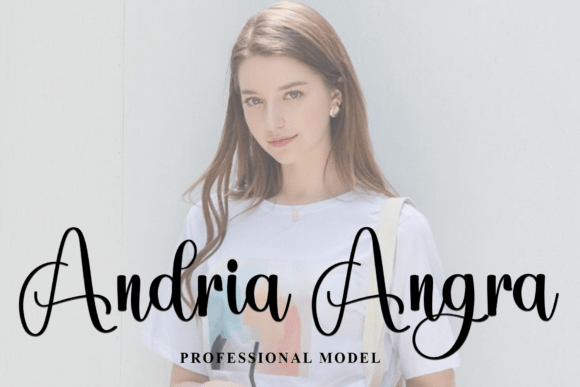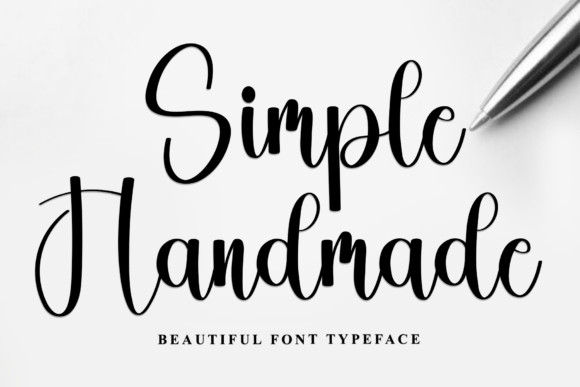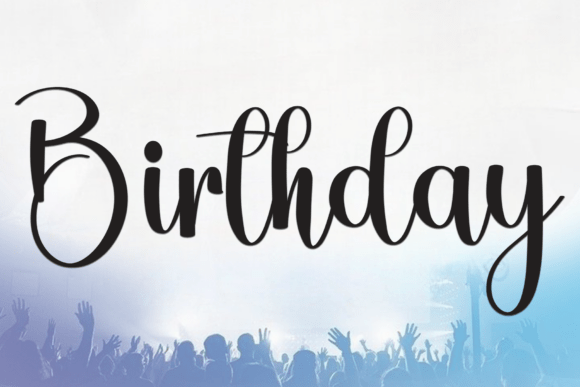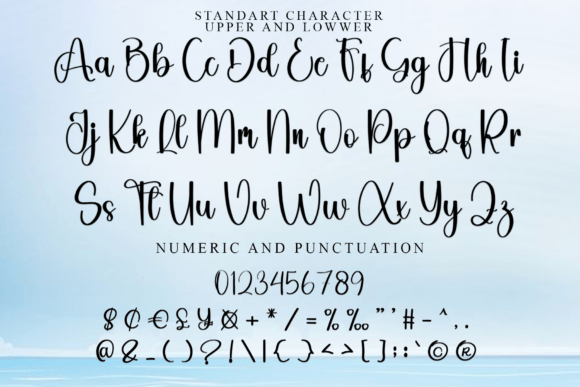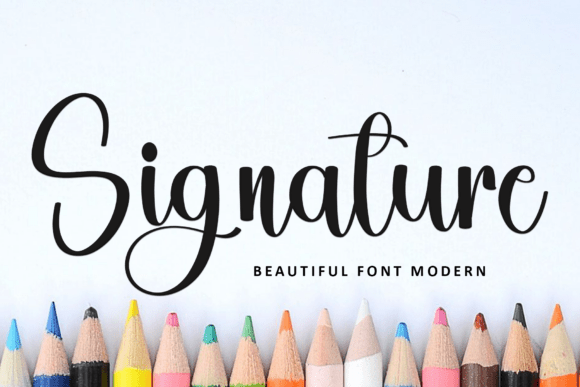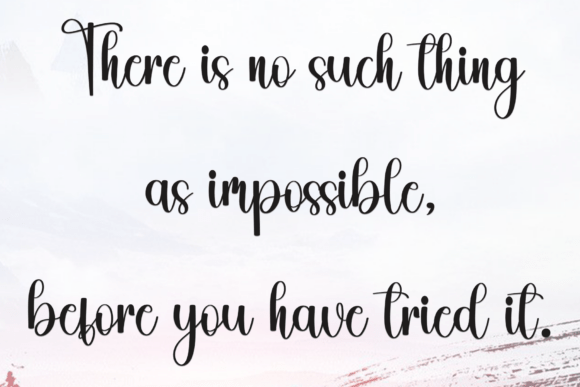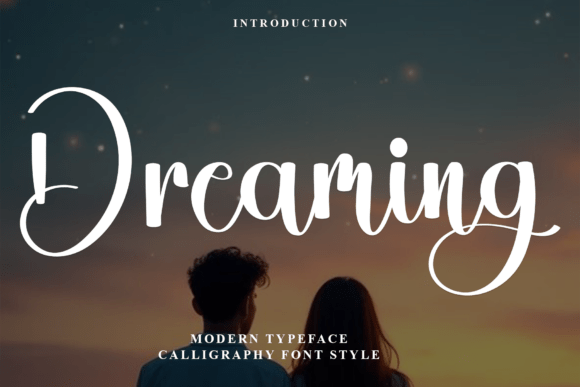
Dreaming Font: The Ultimate Holiday Typeface for Your Festive Designs
Are you looking for a font that embodies the magic and wonder of the holiday season? Look no further than the Dreaming Font, a festive and merry typeface that captures the spirit of Christmas, Hanukkah, and all the other winter celebrations. With its decorative elements and whimsical flair, this font is perfect for adding a touch of enchantment to your designs.
A Festive Font for Your Holiday Projects
Dreaming Font is specifically designed to bring a cheerful and nostalgic ambiance to your words. Whether you’re creating greeting cards, gift tags, or holiday-themed projects, this font is sure to impress. Its unique and playful design makes it perfect for a wide range of applications, from formal invitations to casual social media posts.
What Makes Dreaming Font So Special?
So, what sets Dreaming Font apart from other typefaces? Here are just a few features that make it a standout:
- Decorative elements: Dreaming Font features a range of decorative elements, including intricate swashes, flourishes, and ligatures. These elements add a touch of elegance and sophistication to your designs.
- Whimsical flair: This font has a playful, whimsical feel that’s perfect for the holiday season. It’s sure to bring a smile to your readers’ faces!
- PUA encoded: Dreaming Font is PUA (Private Use Area) encoded, which means you can access all of the amazing glyphs and ligatures with ease. This makes it simple to use the font in your designs, even if you’re not a typography expert.
How to Use Dreaming Font in Your Designs
Using Dreaming Font in your designs is easy. Here are a few tips to get you started:
- Pair it with a simple background: Let the font be the star of the show by pairing it with a simple background. A solid color or a subtle texture works well.
- Experiment with sizes and colors: Don’t be afraid to play around with different sizes and colors. Dreaming Font looks great in bold, bright colors, but it can also be used in more subtle, muted tones.
- Add some festive flair: Take advantage of the font’s decorative elements by adding some festive flair to your designs. Use swashes and flourishes to create a sense of movement and energy.
Dreaming Font is perfect for designers and crafters who want to add a touch of magic to their holiday projects. Whether you’re creating:
- Greeting cards: Use Dreaming Font to create beautiful, one-of-a-kind greeting cards that will impress your friends and family.
- Gift tags: Add a personal touch to your gifts with custom gift tags featuring Dreaming Font.
- Holiday-themed projects: From invitations to decorations, Dreaming Font is the perfect choice for any holiday-themed project.